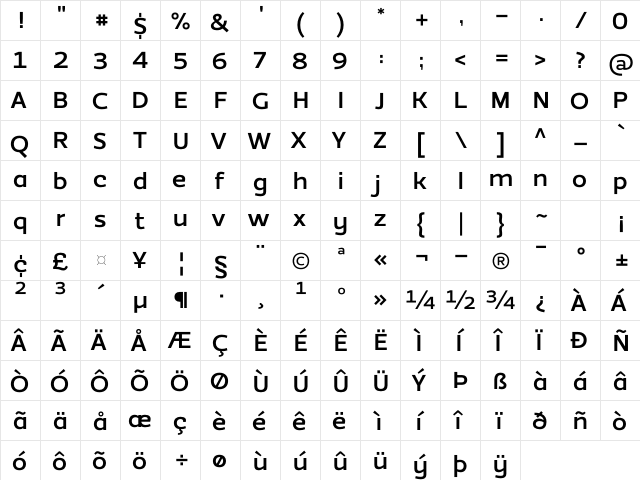
EzzoBoldAlt Regular
| Foundry | Dino dos Santos _DSType |
Design Context for EzzoBoldAlt Typeface
EzzoBoldAlt is a composed and adaptable typeface that performs quietly and consistently across a wide range of design contexts. Its bold stroke weight gives it real presence on the page.